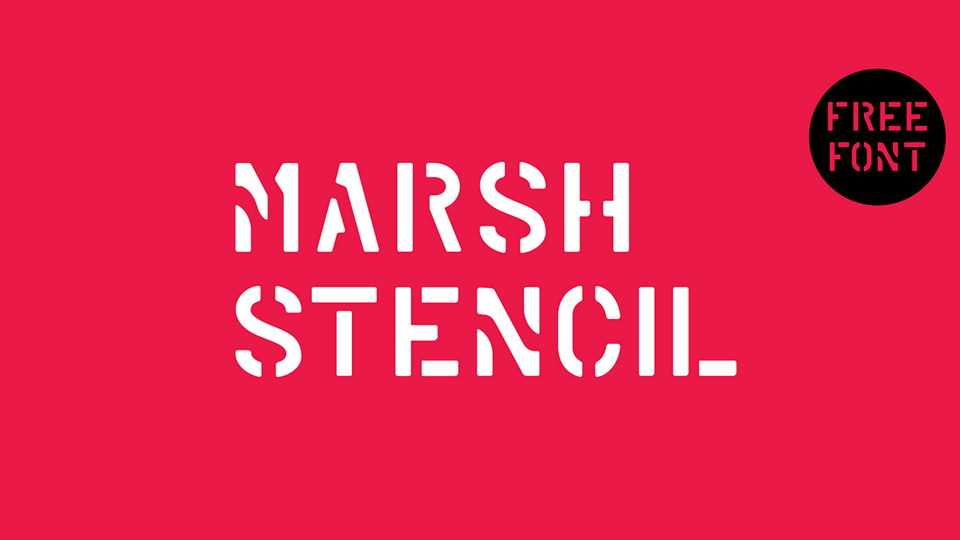
Download Marsh Stencil font, an army style type and a revival of an old stencil typeface produced by the American company MARSH Stencil Machines during WWII.
Designer: Guilherme Schneider